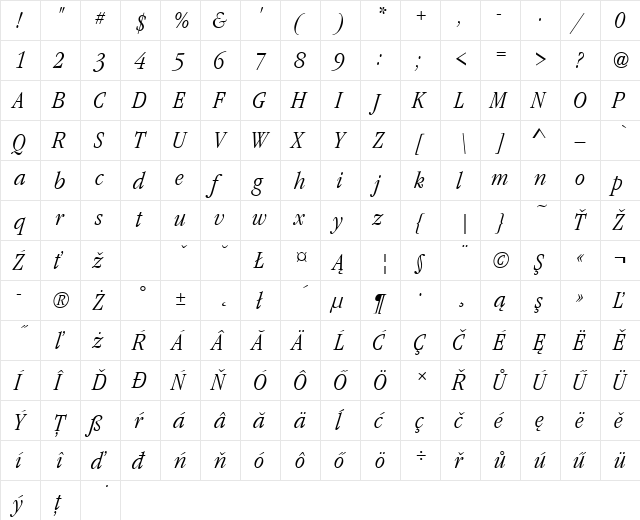
GaramondItcTEELigCon Italic
GaramondItcTEELigCon takes a measured approach to typography — its balanced proportions and neutral character make it a reliable workhorse for both digital and print work. The dynamic lean of this cut emphasises speed and emphasis in any layout.
Pro Tip: Try GaramondItcTEELigCon for annotation and caption copy alongside an upright companion — the contrast in angle creates a dynamic but ordered typographic system.